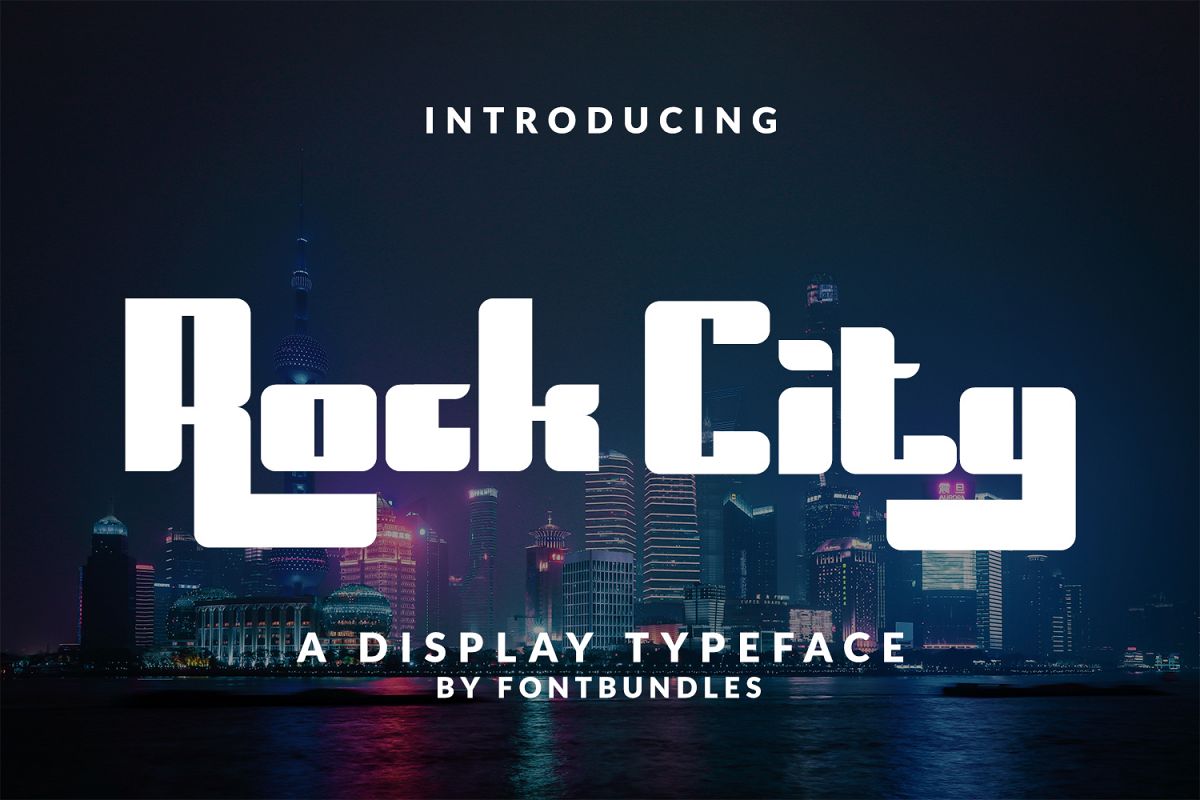
Rock City
Rock City is a good display typeface. Great for logo, headings, branding, magazine, cover album, book cover, movie, apparel design, quotes, invitations, poster, greeting cards, product packaging, printed quotes, etc